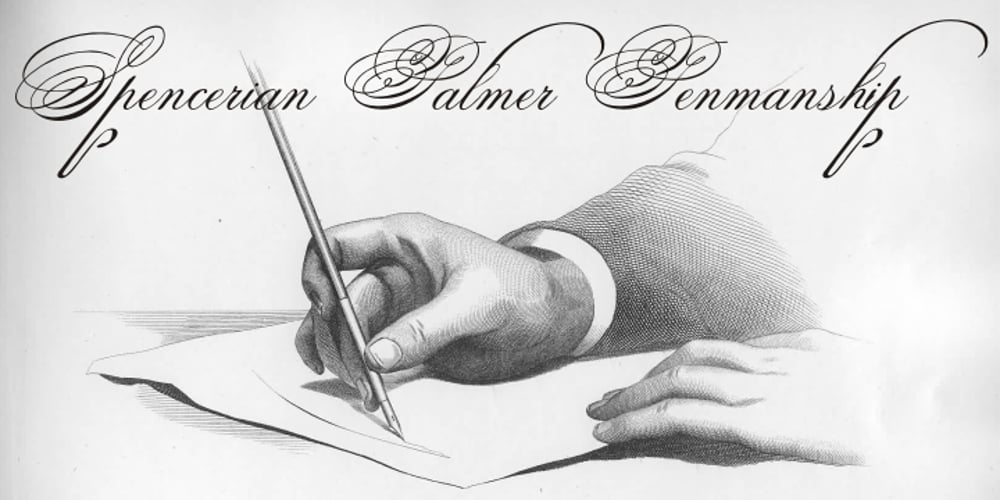
Spencerian Palmer Penmanship Font Family was designed by Paulo W and published by Intellecta Design. Spencerian Palmer Penmanship contains 3 styles and family package options. The concepts of this font come from the Palmer’s Penmanship guides and manual from XIX century.